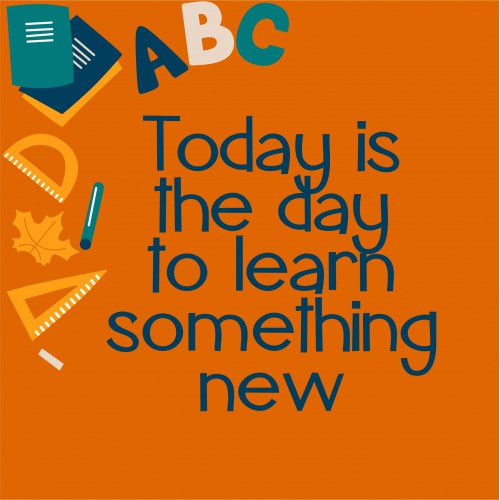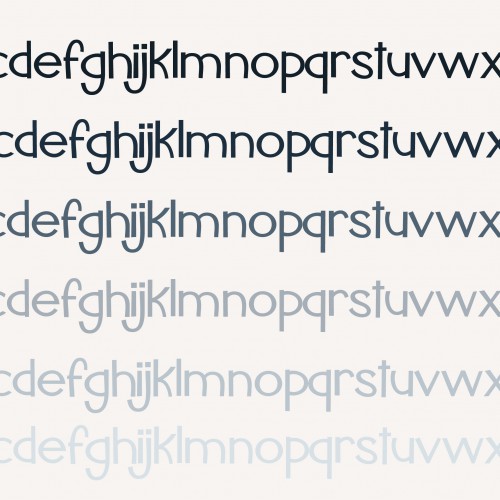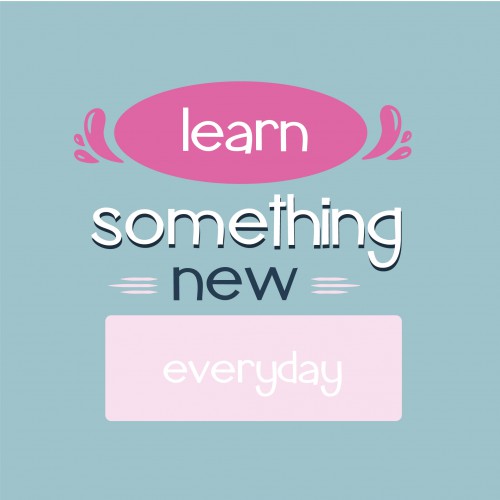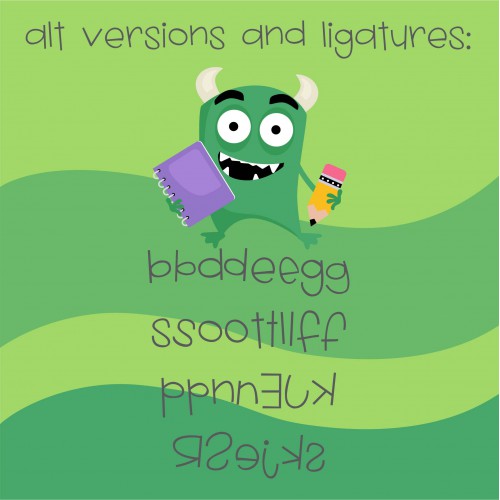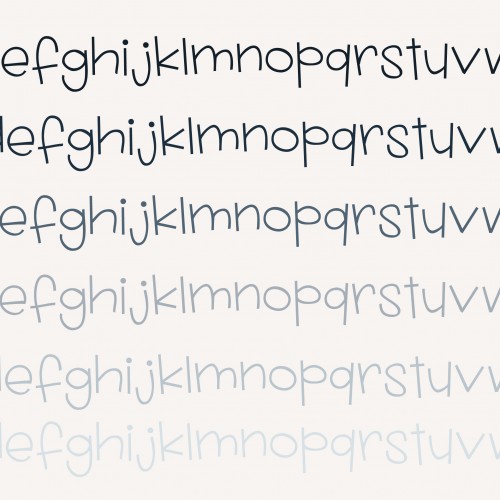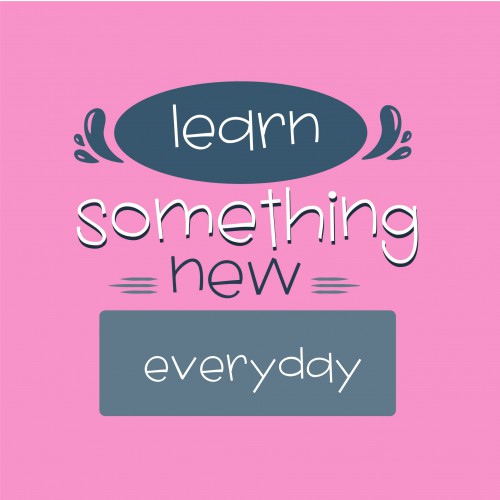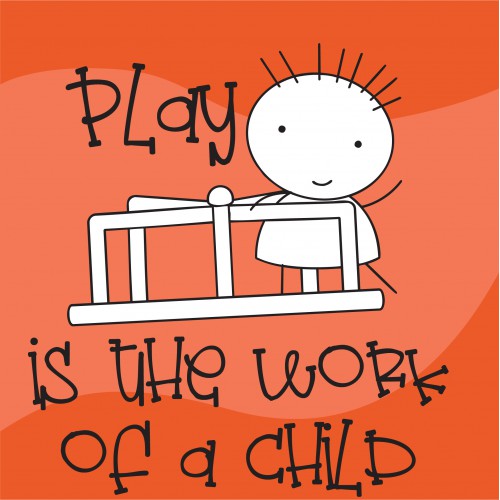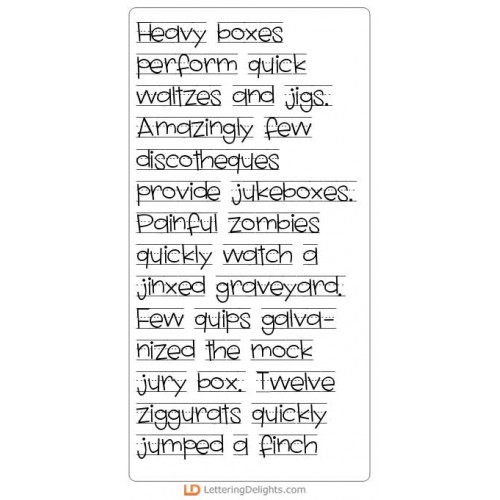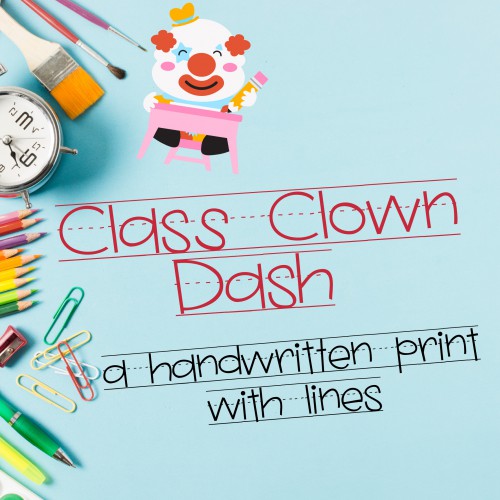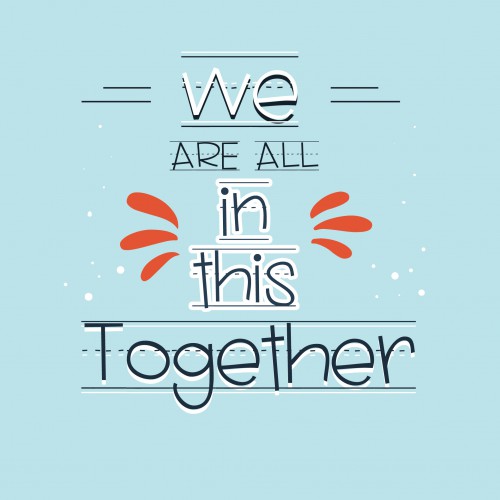
Add a playful, hand-drawn touch to your creative projects with the It’s All Write Font Bundle! This cheerful collection includes 20+ unique fonts, ranging from whimsical handwriting and flowing script to bold display lettering, quirky doodle alphabets, and character-filled styles.
With so many different looks in one bundle, you’ll have the perfect font for classroom materials, children’s projects, printable activities, scrapbook pages, invitations, party decorations, stickers, crafting projects, social media graphics, and much more.
This bundle includes:
• 20+ playful and distinctive fonts
• Handwritten, script, doodle, decorative, and display styles
• A versatile mix of sweet, silly, casual, and bold lettering
• Coordinating fonts that work beautifully together
• Plenty of personality for both print and digital projects